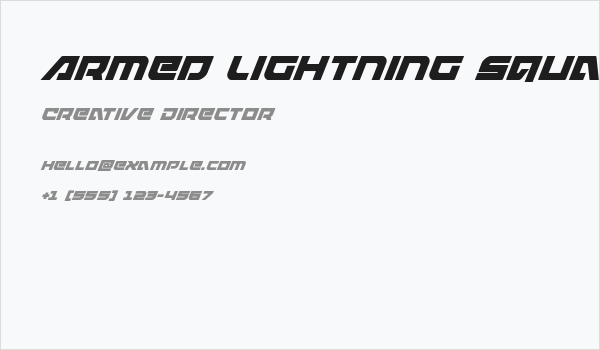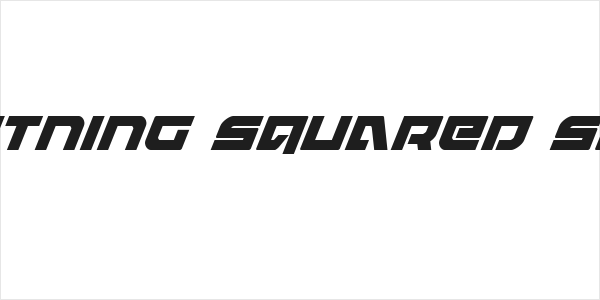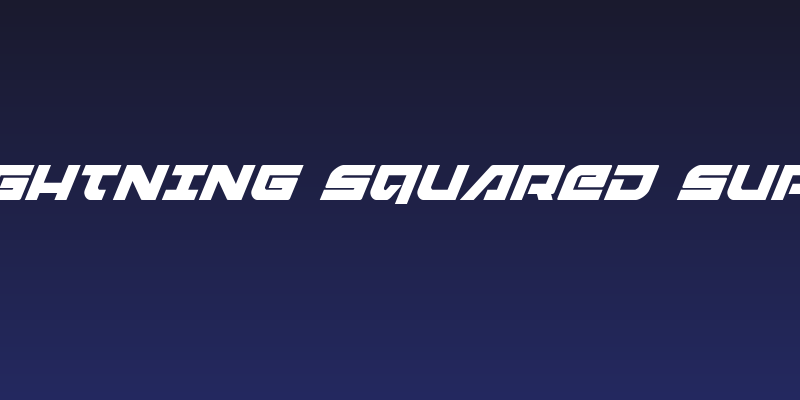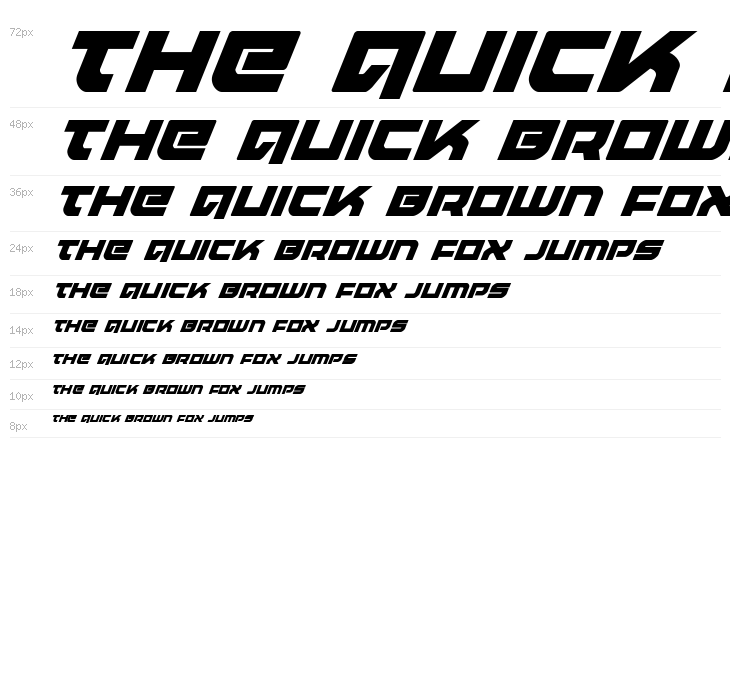
Armed Lightning Squared Super-Italic Font
Armed Lightning Squared Super-Italic Description
This font features a bold and dynamic design with a strong italic slant, giving it a sense of motion and energy. The characters are angular and geometric, with sharp edges and a futuristic appearance. The uppercase and lowercase letters maintain a consistent style, with uniform stroke widths that contribute to its bold presence. The numerals and special characters are designed to match the overall aesthetic, ensuring a cohesive look across all text. This font is ideal for projects that require a modern and impactful visual statement.
| Proposed Projects | Ideal for sports branding, technology logos, video game titles, and dynamic advertising campaigns. |